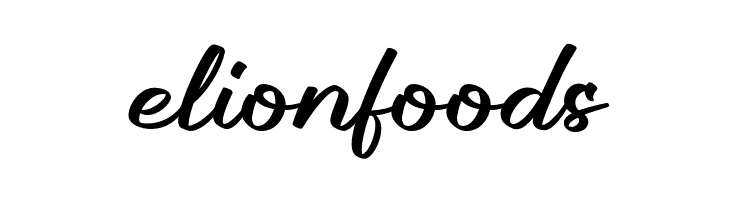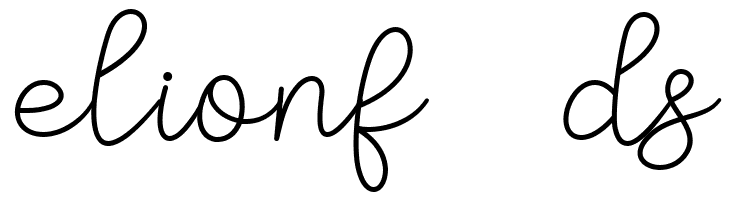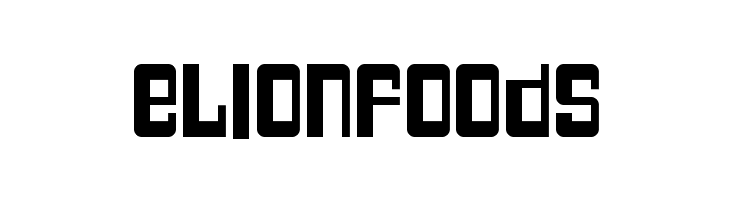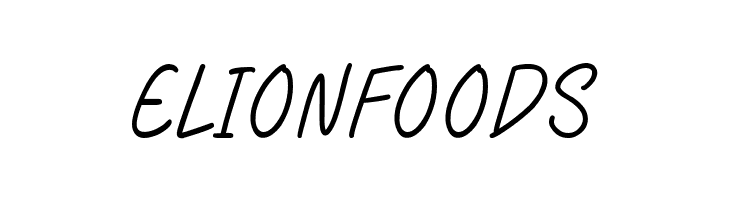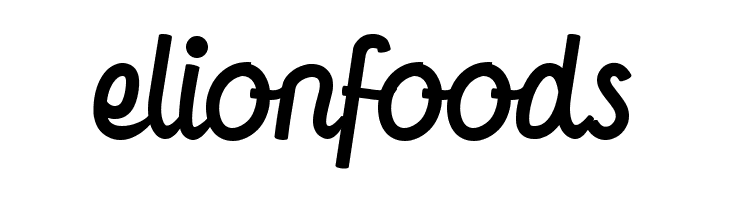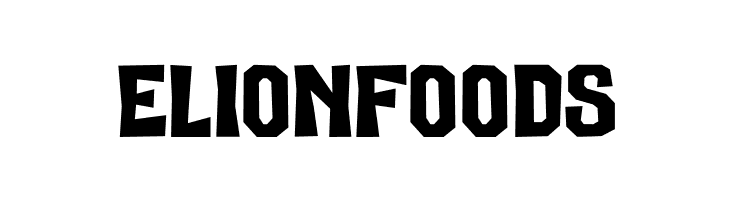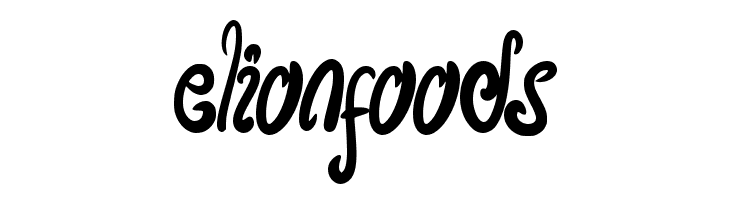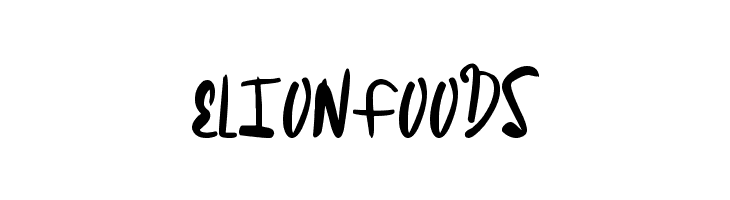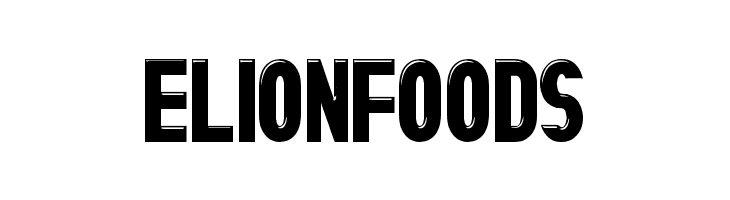
A playful, handwritten font with smooth curves and a casual style.
A bold, spiky decorative font with an explosive effect.
A bold, geometric font with a modern, industrial style.
A bold, handwritten script font with a playful and dynamic style.
A decorative and whimsical font with playful curls and loops.
A bold, angular font with a strong, modern aesthetic.
A whimsical and flowing script font with elegant, fluid letterforms.
A bold, expressive handwritten font with dynamic strokes.
A bold, shadowed font with a modern, geometric style.
A dynamic and fluid script font with elegant, flowing letterforms.